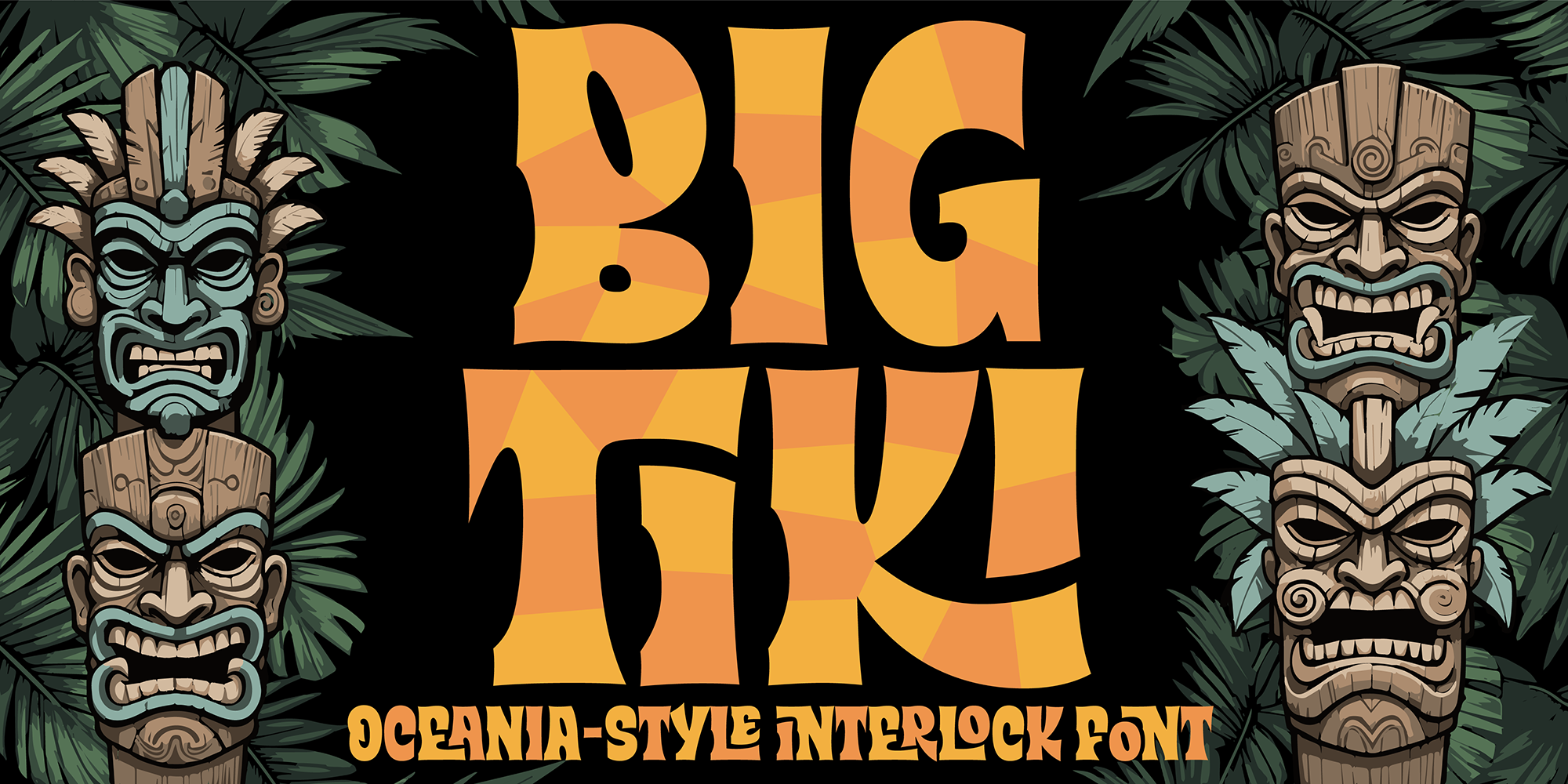
Big Tiki Font is perfect for Polynesian restaurant branding, tropical tiki bar signage, Hawaiian resort materials, island vacation campaigns, surf shop logos, beach party invitations, tropical cocktail menus, Pacific island tourism, and exotic adventure marketing. This vibrant typeface brings authentic island spirit and Polynesian culture to both digital and print design applications.
Big Tiki Font is exciting because it embodies the mystical power and ancient wisdom of Polynesian tiki culture, making it an exceptional choice for designers who want to evoke exotic paradise with authentic tribal inspiration. Its bold ceremonial letterforms and carved wood aesthetics provide the perfect combination of ancient mysticism and contemporary functionality, ensuring your projects communicate island magic, cultural heritage, and tropical adventure that resonates with audiences seeking authentic paradise experiences.
The Big Tiki Font family includes tribal weight variations and ceremonial elements, featuring regular and bold weights with complementary decorative tiki symbols, Polynesian ornaments, and island-inspired accent marks. Each style maintains consistent tribal aesthetics while offering flexibility for different tropical applications, allowing designers to create powerful brand systems that reflect ancient Polynesian culture and island mysticism.
Whether you're designing for hospitality brands, entertainment venues, or tropical tourism companies, Big Tiki Font Free Download delivers authentic island appeal and tribal sophistication that connects with audiences seeking exotic adventure and cultural authenticity. This premium typeface offers designers the mystical power and tribal elegance needed to create designs that communicate Polynesian heritage, island magic, and tropical excellence effectively. The font's ceremonial character makes it perfect for tribal branding, tropical signage, and island applications where tiki authenticity is essential. Download Big Tiki Font today and empower your creative projects with genuine Polynesian sophistication and tribal typography excellence that defines island culture.